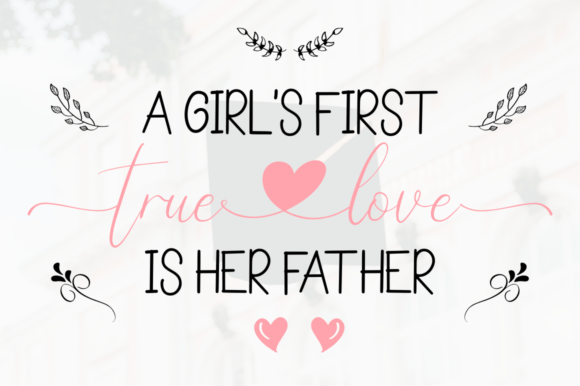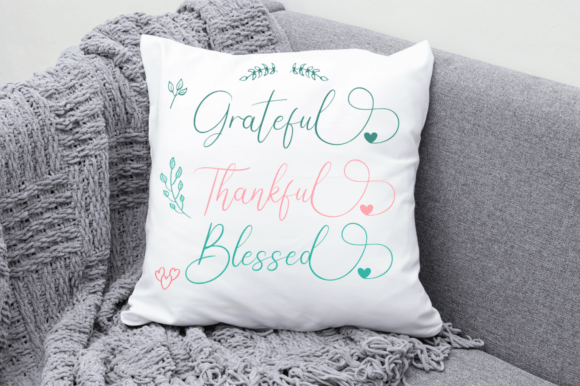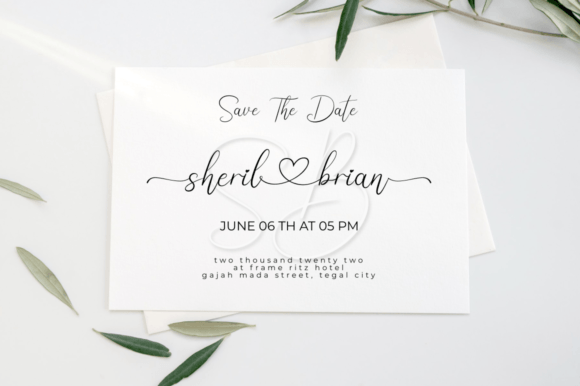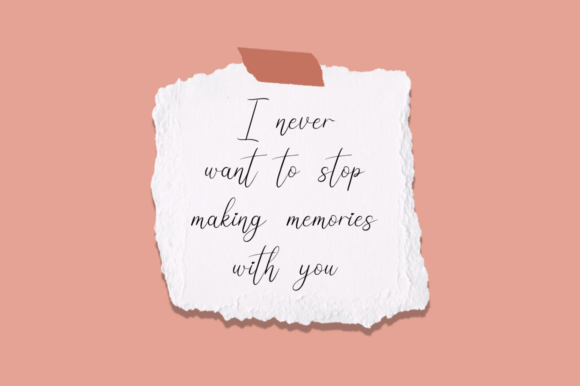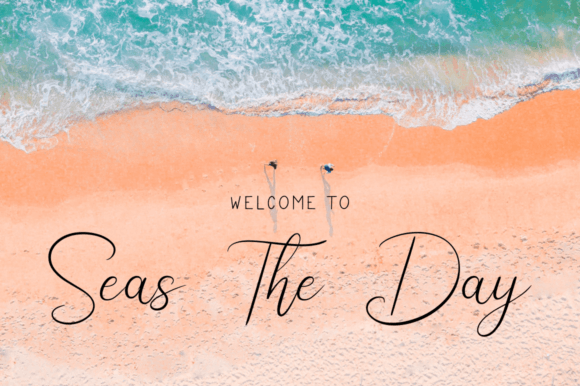
Introduction to Hello Graduation Font
Do you remember the excitement of graduation day, surrounded by friends, family, and the thrill of a new chapter in life? As a designer, you’ve likely been tasked with capturing the essence of this moment through various creative projects. Whether it’s a logo for a school’s annual event or a poster for a graduation party, you need a font that can convey the joy, pride, and accomplishment of this milestone. That’s where the Hello Graduation Font comes in – a beautiful and playful font that’s perfect for bringing your designs to life.
This versatile font is more than just a design resource; it’s a high-quality tool that can elevate your creative projects and leave a lasting impression. With its PUA-encoded glyphs and ligatures, you can easily access a wide range of characters and add an extra touch of personality to your designs.
Key Features of Hello Graduation Font
- Unique and celebratory design perfect for creative projects like graduation invitations, certificates, and announcements.
Honest Review: Hello Graduation Font
As a designer, I’m always on the lookout for high-quality design resources to elevate my creative projects. Recently, I stumbled upon the Hello Graduation Font and I’m excited to share my thoughts on this free download.
- ✨ The font is a beautiful, elegant script that’s perfect for celebrating milestones like graduation.
- ✨ The high-quality design is crisp and clear, making it easy to read and use in various contexts.
- ✨ The transparent background option allows for seamless integration with different backgrounds and designs.
- ⚠️ The font may not be as versatile as other script fonts, limiting its use in certain design projects.
Overall, I think the Hello Graduation Font is a great addition to any designer’s toolkit. While it may have some limitations, its high-quality design and elegant script make it a great choice for creative projects that require a touch of sophistication.
How to Use Hello Graduation Font
Introduction to Hello Graduation Font
Hello Graduation Font is a high-quality design resource that adds a touch of elegance to any creative project. With its transparent background and sleek design, it’s perfect for adding a personal touch to graduation announcements, certificates, and other celebratory materials.
Tips for Getting the Most Out of Hello Graduation Font
For optimal results, use Hello Graduation Font in conjunction with other high-quality design elements. Experiment with different font sizes, colors, and arrangements to achieve a unique look.
Common Use Cases for Hello Graduation Font
Hello Graduation Font is perfect for:
- Graduation announcements and invitations
- Personalized certificates and diplomas